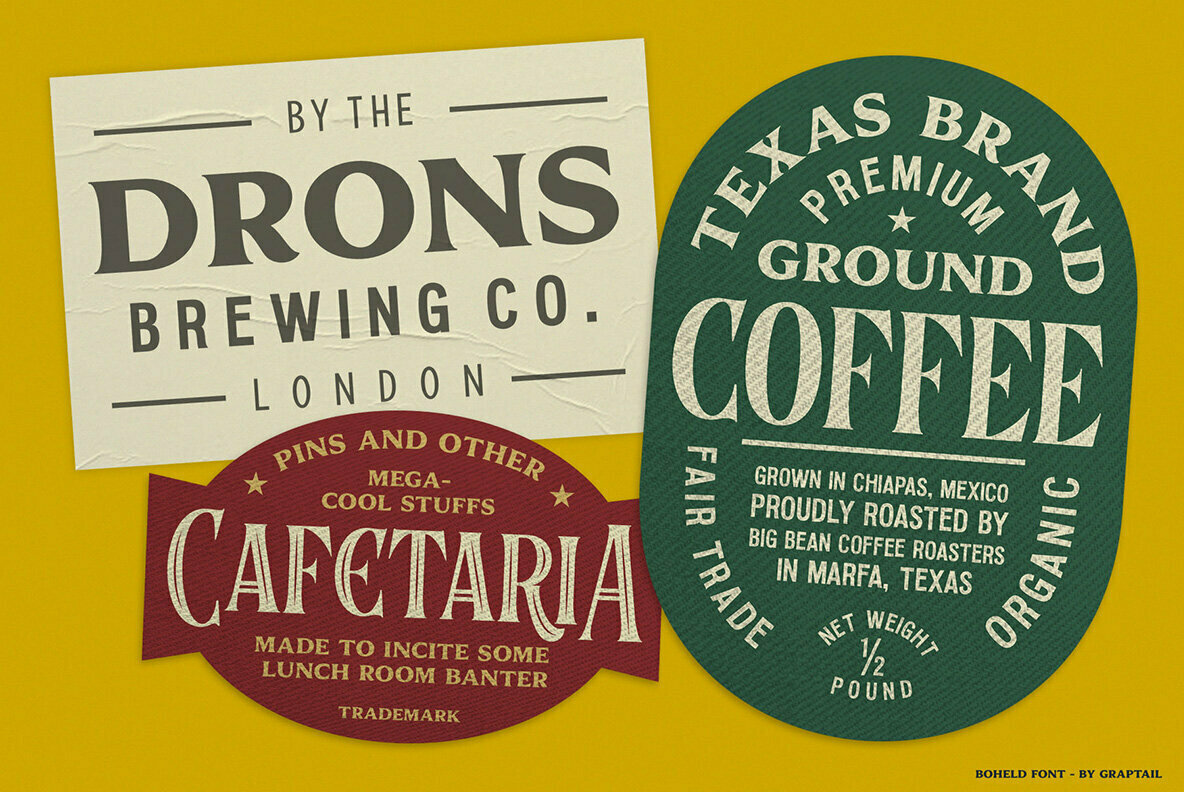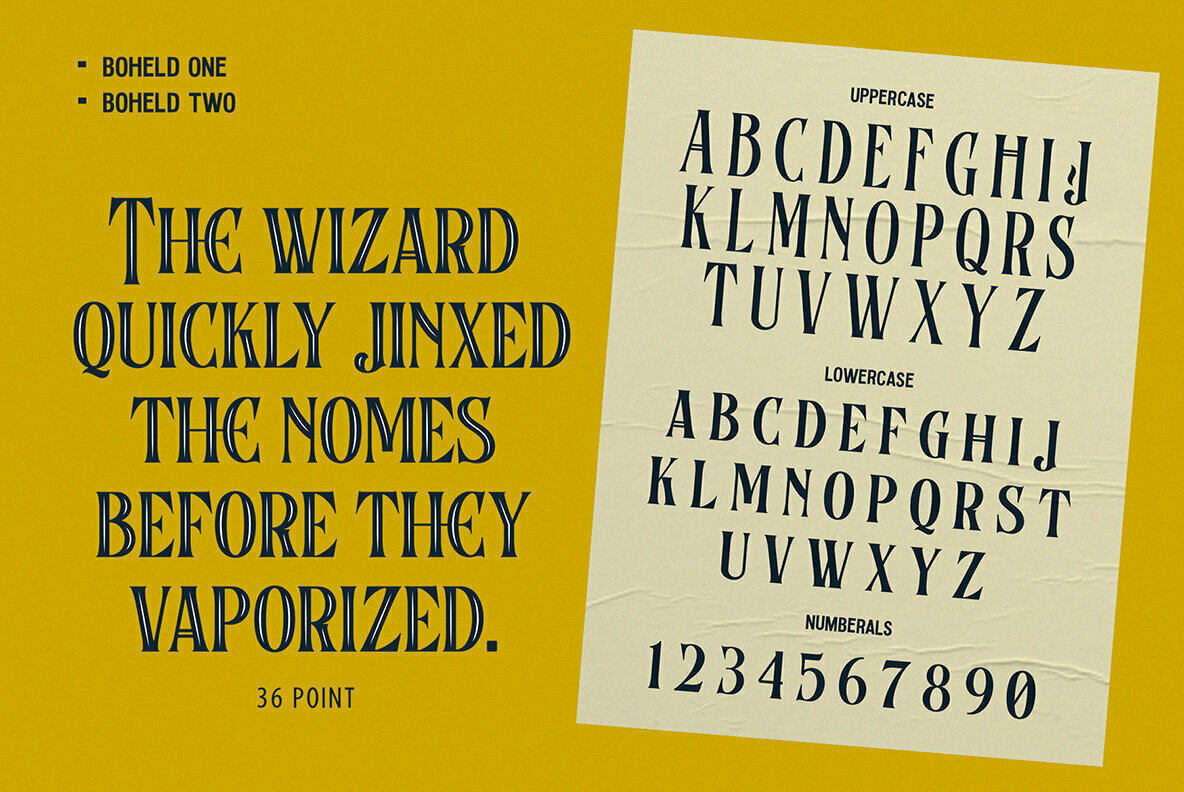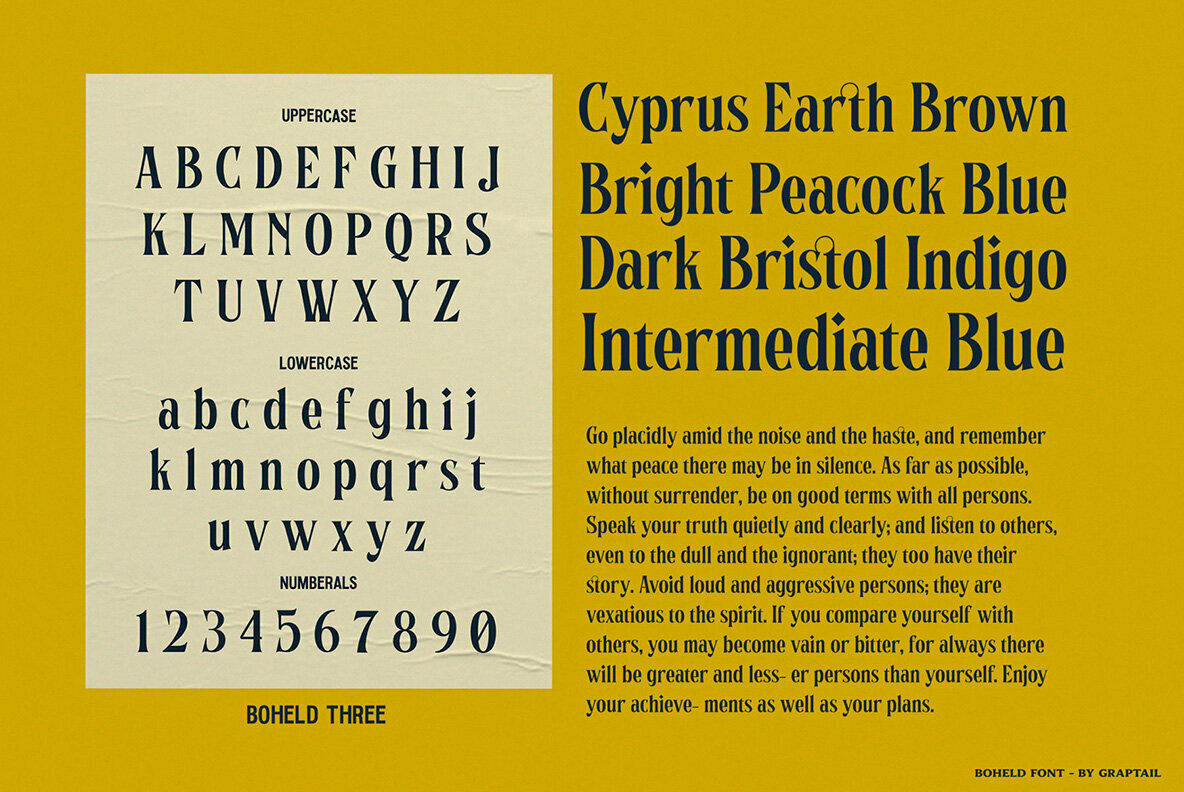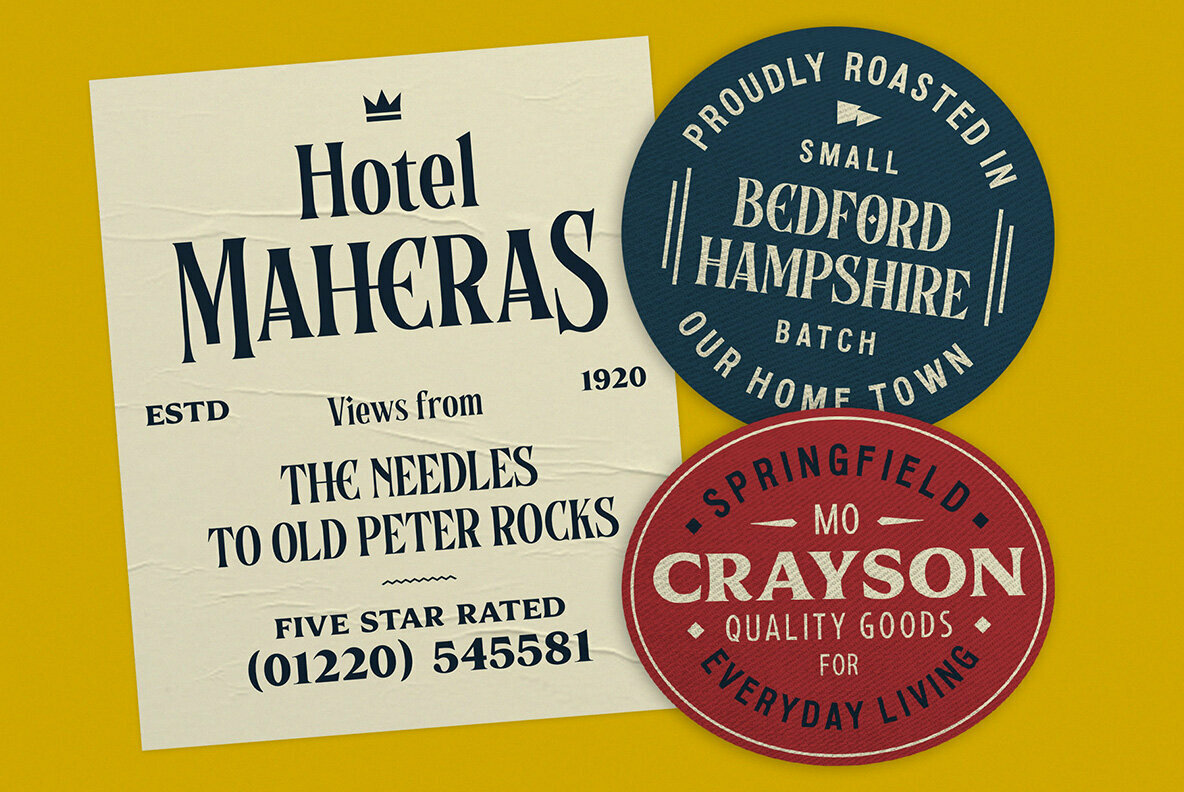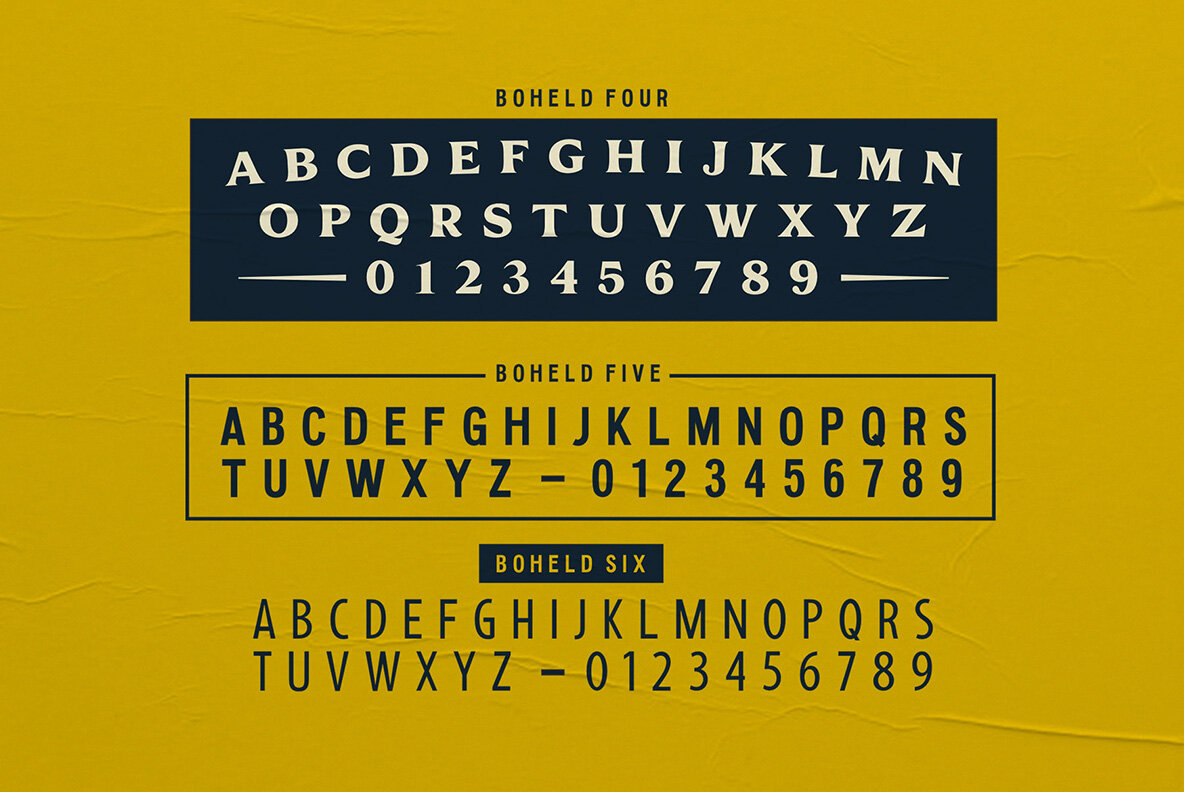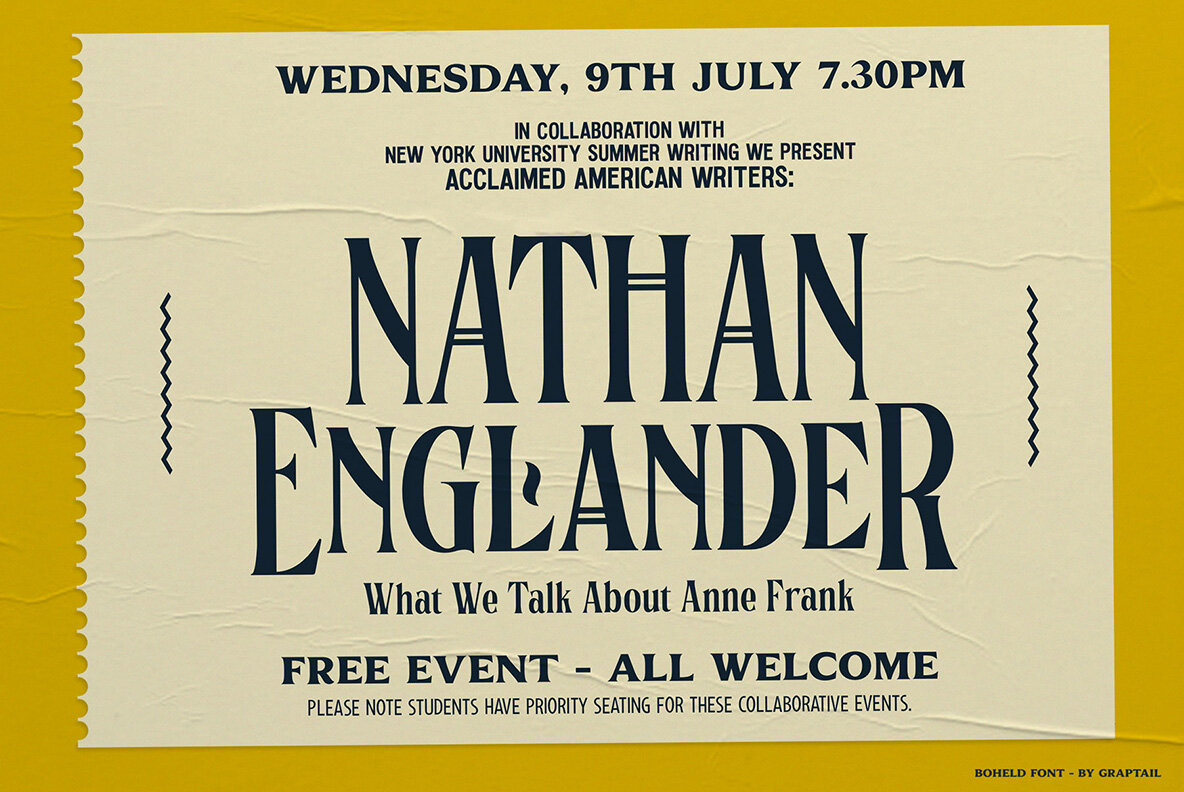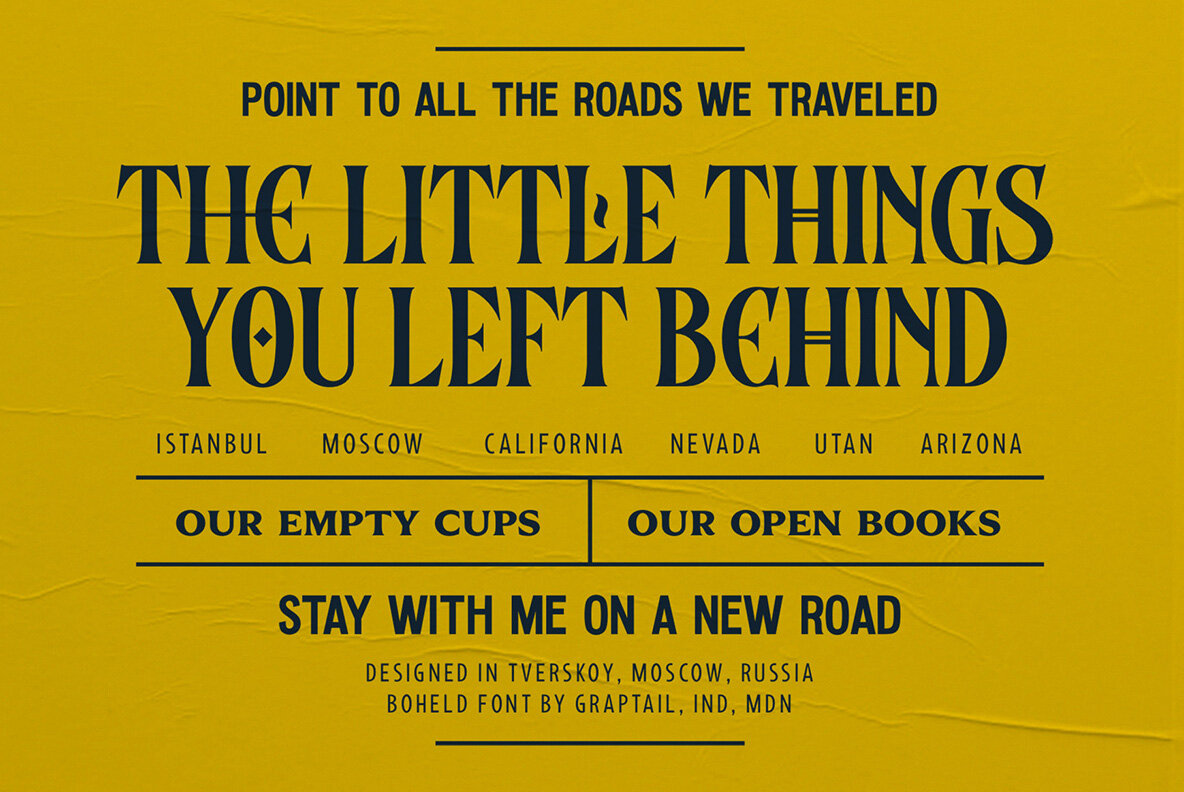
Boheld Font
Step into the world of classic and contemporary design with the Boheld Fonts Collection by Graptail. This diverse set features six unique variations: Sans, Serif, Bold, Condensed, and Inline, allowing endless possibilities for your creative endeavors. The collection draws inspiration from classic labels, tickets, and posters, offering a wealth of design cues for any project. We hope you enjoy these fonts, which are great for digital design and much more.Boheld Fonts Collection: Versatile Typography for Creative Projects